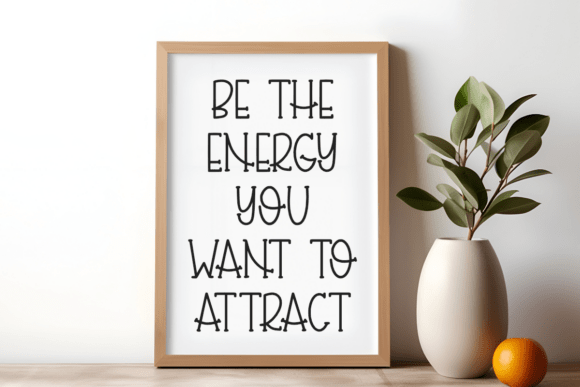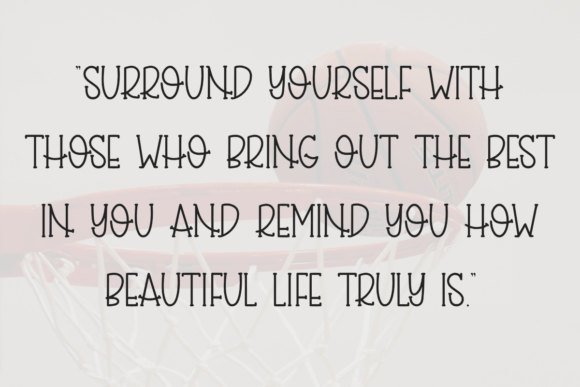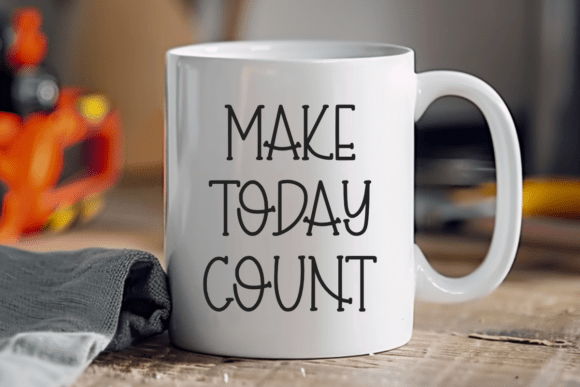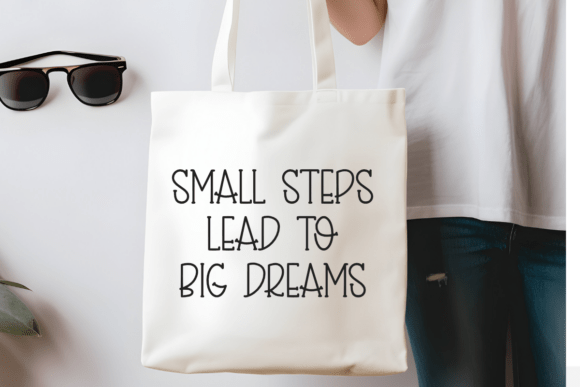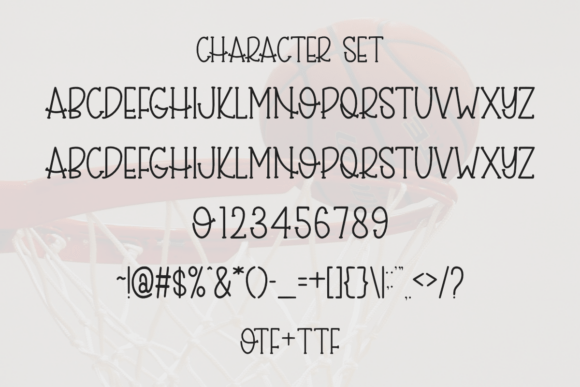
Get Ready to Add a Touch of Whimsy to Your Projects with Bouncy Basket Font
Who hasn’t experienced that moment of pure creative joy when a new font sparks an idea for a project? It’s like a lightbulb goes off, and suddenly you can envision the perfect combination of colors, shapes, and words. For many crafters, designers, and makers, this moment is a regular occurrence – and it’s exactly what happens when you discover the Bouncy Basket Font.
This playful handwritten font is designed to add a touch of whimsy to your crafts, planners, stickers, and more. Its cute and friendly style makes it perfect for a variety of creative DIY projects, from Cricut designs to sublimation prints. With the Bouncy Basket Font, you can bring your ideas to life and make them stand out with a unique, eye-catching touch.
Bouncy Basket Font Key Features
- Font Family: Bouncy Basket Font is a unique, hand-drawn font that combines playful and whimsical elements.
- Unique Characteristics: Bouncy Basket Font features a distinctive, hand-drawn style with bouncy and playful flourishes, adding a touch of personality to any design.
Bouncy Basket Font Review
First off, I really love the playful and whimsical vibe of the Bouncy Basket Font. ✨ It’s perfect for creating a fun and approachable atmosphere in branding, advertisements, or even children’s products. The bouncy, energetic feel of the font is infectious and can instantly grab the attention of your target audience. ✨
- Unique and memorable: The Bouncy Basket Font is unlike any other font out there, making it perfect for brands that want to stand out from the crowd.
- Perfect for creative industries: Whether you’re working in advertising, design, or education, this font is sure to bring a smile to your customers’ faces.
However, there are a few limitations to consider. ⚠️ The font can be a bit too playful for formal or professional settings, and it may not be suitable for every type of branding or design project. Additionally, the font’s bouncy feel can sometimes make it difficult to read at smaller sizes.
Overall, I think the Bouncy Basket Font is a great addition to any designer’s toolkit. While it may not be the best choice for every project, it’s sure to bring a much-needed dose of fun and creativity to your designs. With a little caution and careful consideration, this font can help you create truly memorable and engaging designs that will leave a lasting impression on your audience.
Some popular use cases for the Bouncy Basket Font include:
– Branding and marketing materials
– Event invitations
– Digital signage
– To add a playful and energetic touch to your designs